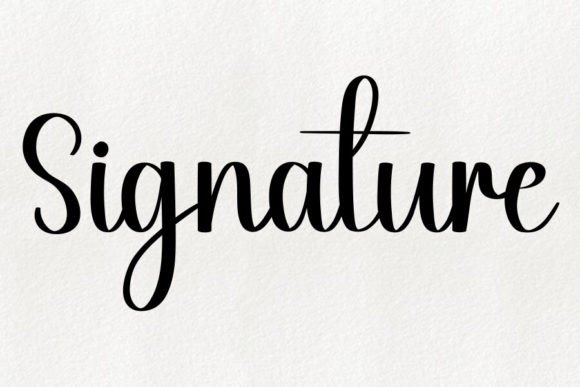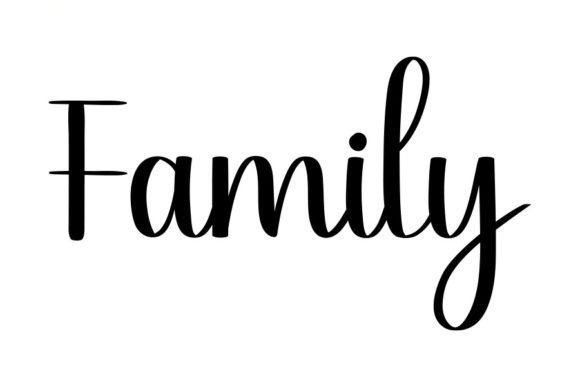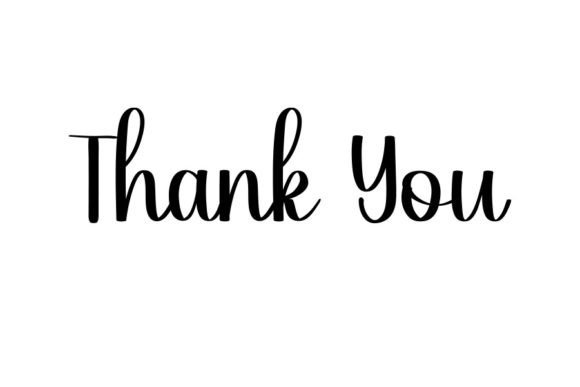
Introducing Cutting Font: The Ultimate Handwritten Font for Designers and Crafters
Are you tired of using the same old fonts in your designs and crafts? Look no further than Cutting Font, a fun and friendly handwritten font that’s perfect for a variety of projects. Whether you’re a designer, crafter, or simply someone who loves to create, Cutting Font has the potential to become your new go-to font.
What is Cutting Font?
Cutting Font is a beautiful, handwritten font that’s designed to add a personal touch to your projects. Its playful and friendly vibe makes it perfect for a wide range of applications, from digital designs and presentations to crafts and greeting cards.
Key Features of Cutting Font
- Handwritten style: Cutting Font has a unique, handwritten style that’s both fun and elegant.
- Versatile: This font can be used for a variety of projects, from digital designs to crafts and paper crafting.
- Easy to read: Despite its playful style, Cutting Font is easy to read, making it perfect for use in body text.
- Scalable: This font can be scaled up or down without losing its charm, making it perfect for use in a variety of projects.
Uses for Cutting Font
So, what can you use Cutting Font for? The possibilities are endless! Here are a few ideas to get you started:
- Crafts: Use Cutting Font to add a personal touch to your crafts, such as scrapbooking, card making, and DIY projects.
- Digital design: This font is perfect for use in digital designs, such as social media graphics, blog posts, and website headers.
- Presentations: Add a touch of personality to your presentations with Cutting Font.
- Greeting cards: Use Cutting Font to create beautiful, handmade greeting cards for special occasions.
Why Choose Cutting Font?
So, why should you choose Cutting Font over other fonts? Here are a few reasons:
- Unique style: Cutting Font has a unique, handwritten style that’s sure to stand out.
- Ease of use: This font is easy to use and can be scaled up or down without losing its charm.
- Versatility: Cutting Font can be used for a wide range of projects, making it a great addition to your font library.
Tips for Using Cutting Font
Here are a few tips for using Cutting Font in your projects:
- Use it with images: Cutting Font pairs perfectly with images, making it a great choice for use in digital designs and crafts.
- Experiment with colors: Try using Cutting Font with different colors to add a pop of personality to your projects.
- Mix and match: Don’t be afraid to mix and match Cutting Font with other fonts to create a unique look.
In conclusion, Cutting Font is a fun and friendly handwritten font that’s perfect for designers, crafters, and anyone who loves to create. Its unique style, versatility, and ease of use make it a great addition to your font library. Whether you’re using it for crafts, digital design, presentations, or making greeting cards, Cutting Font has the potential to become your new go-to font.